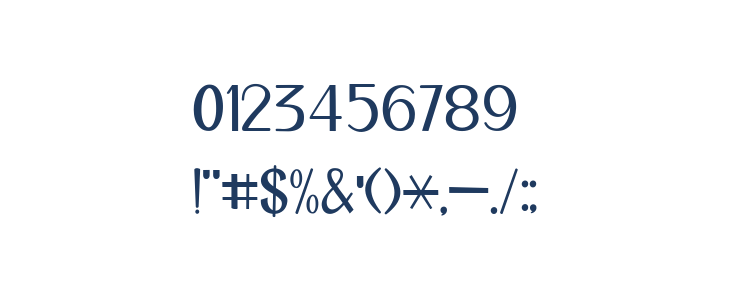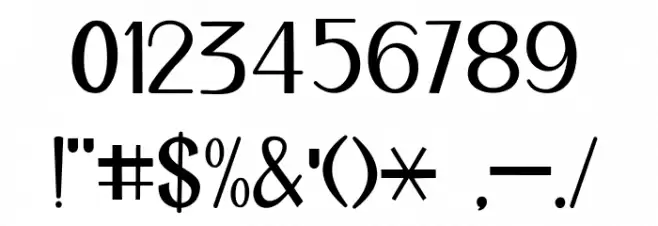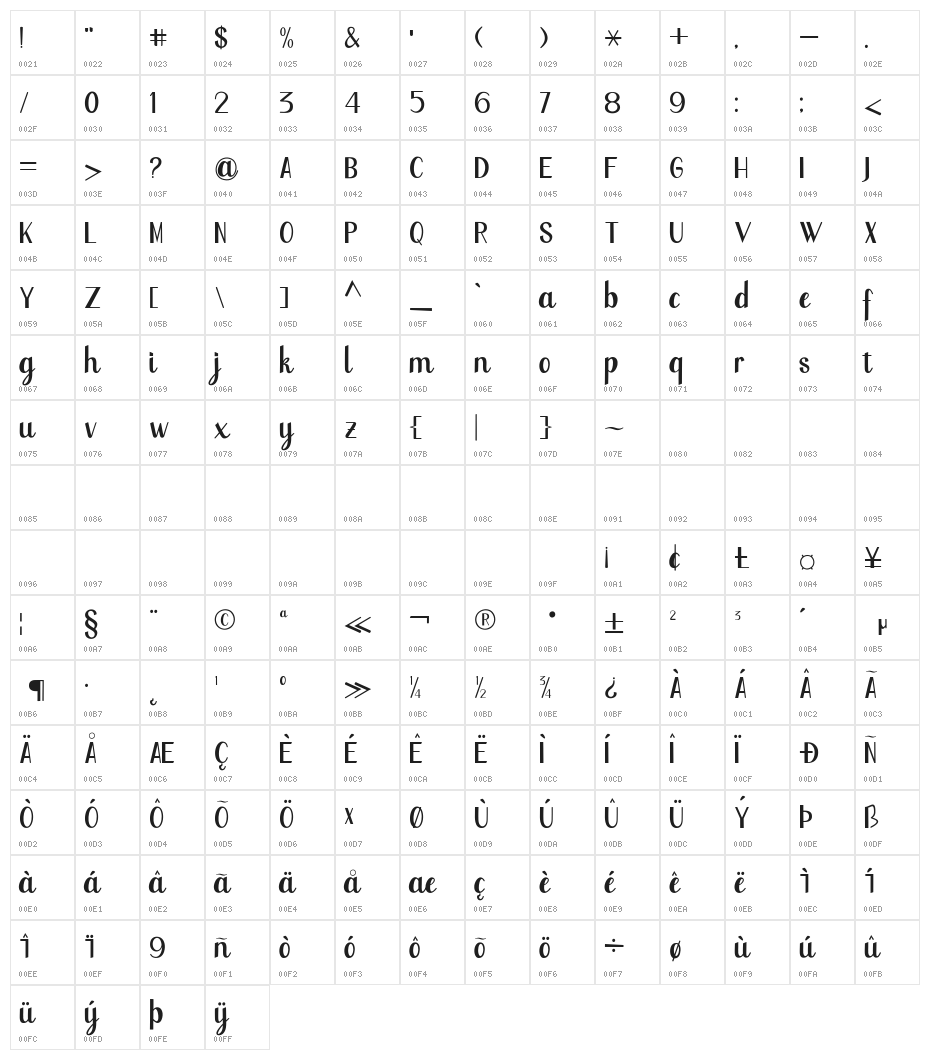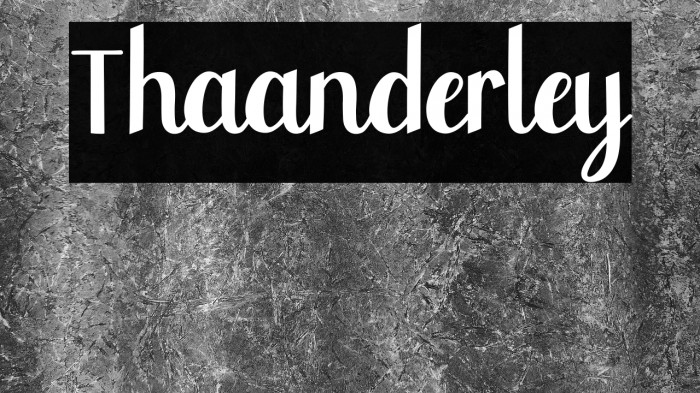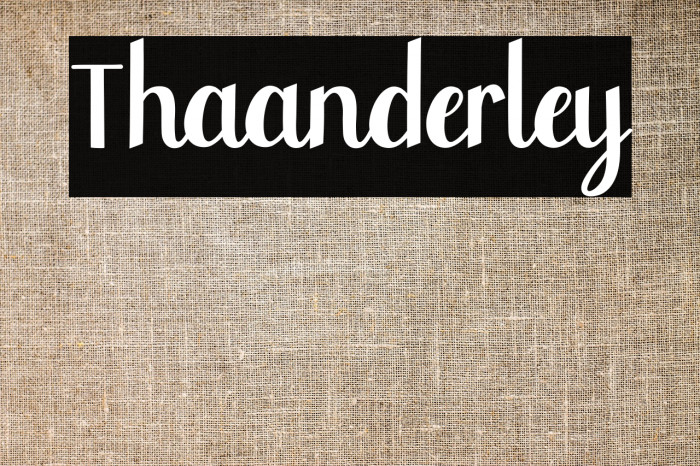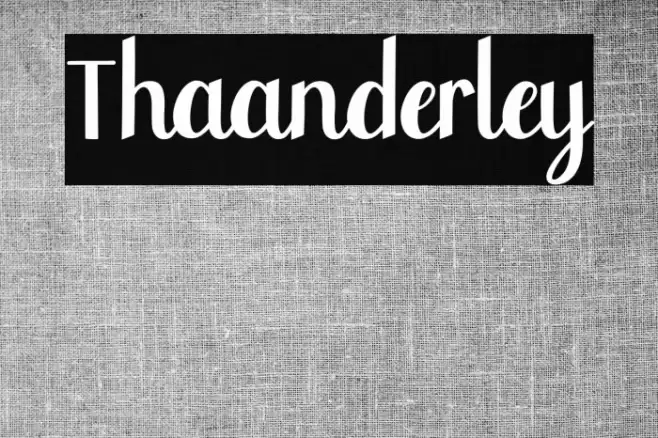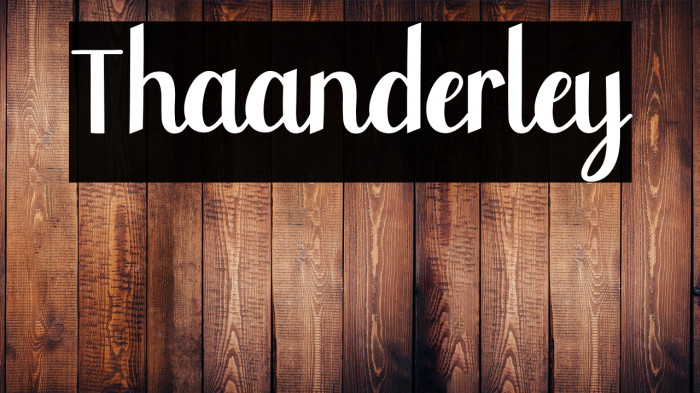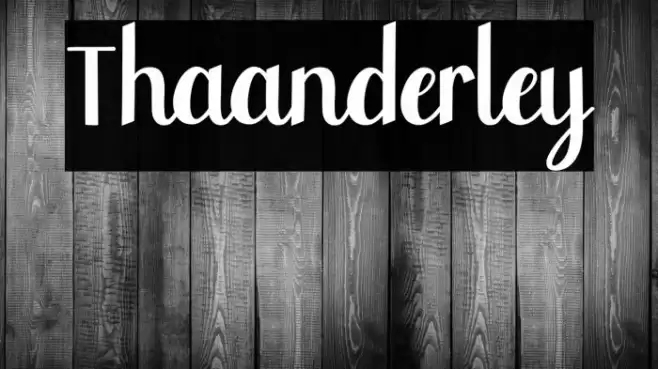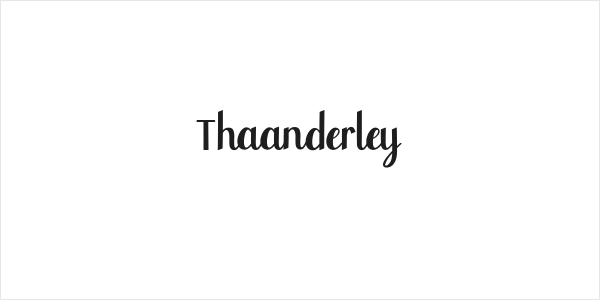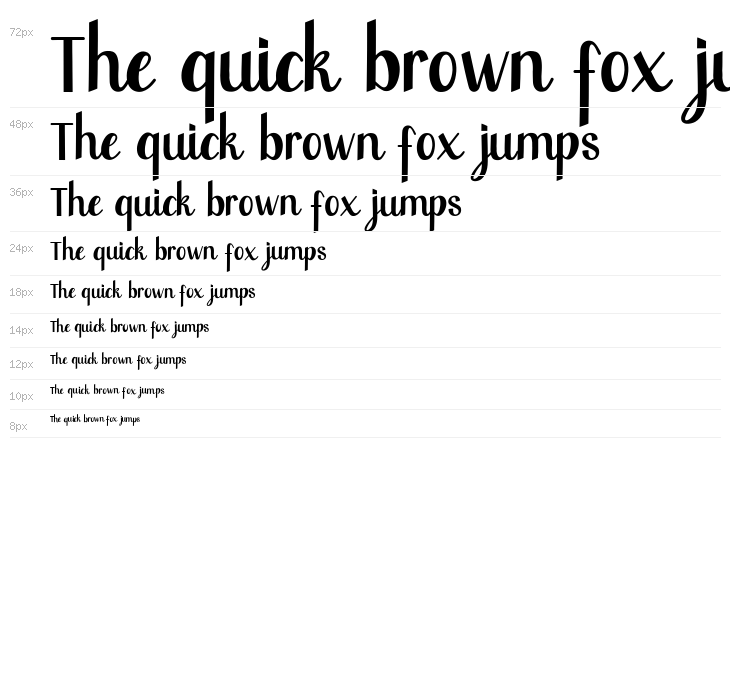
Thaanderley Font
Thaanderley Description
This font features a unique blend of modern and vintage styles, characterized by its bold and slightly condensed letterforms. The uppercase letters exhibit a strong presence with a mix of straight and slightly curved lines, giving them a distinctive flair. The lowercase letters maintain a consistent style, with some characters like 'g' and 'y' showcasing elegant loops. The numerals are clear and legible, matching the overall boldness of the font. Special characters are well-integrated, maintaining the font's cohesive look. This font's versatility makes it suitable for various design projects.
| Overall Style | Modern, Vintage |
| Proposed Projects | Ideal for branding, poster design, and headlines where a strong visual impact is desired. |